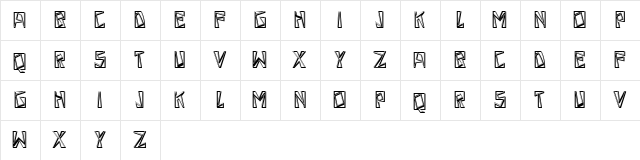
Gabaritos Regular
Design Context for Gabaritos Typeface
Gabaritos is a composed and adaptable typeface that performs quietly and consistently across a wide range of design contexts.